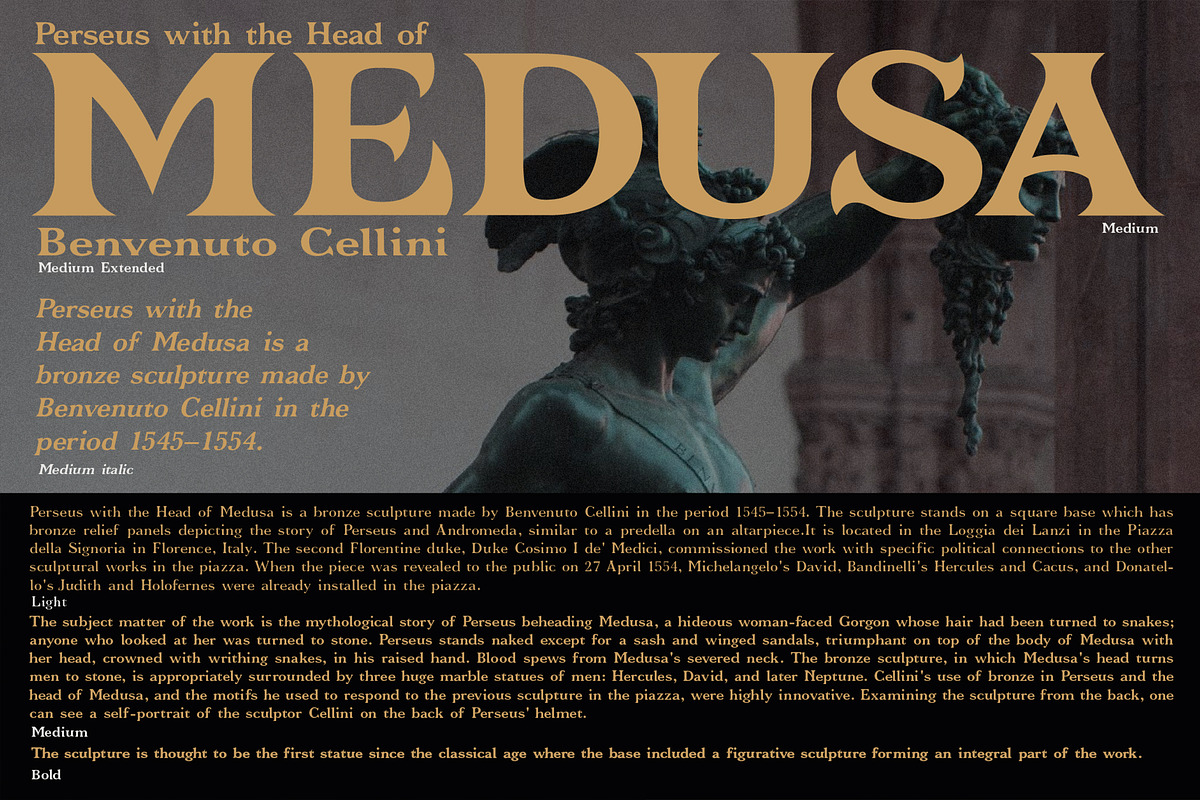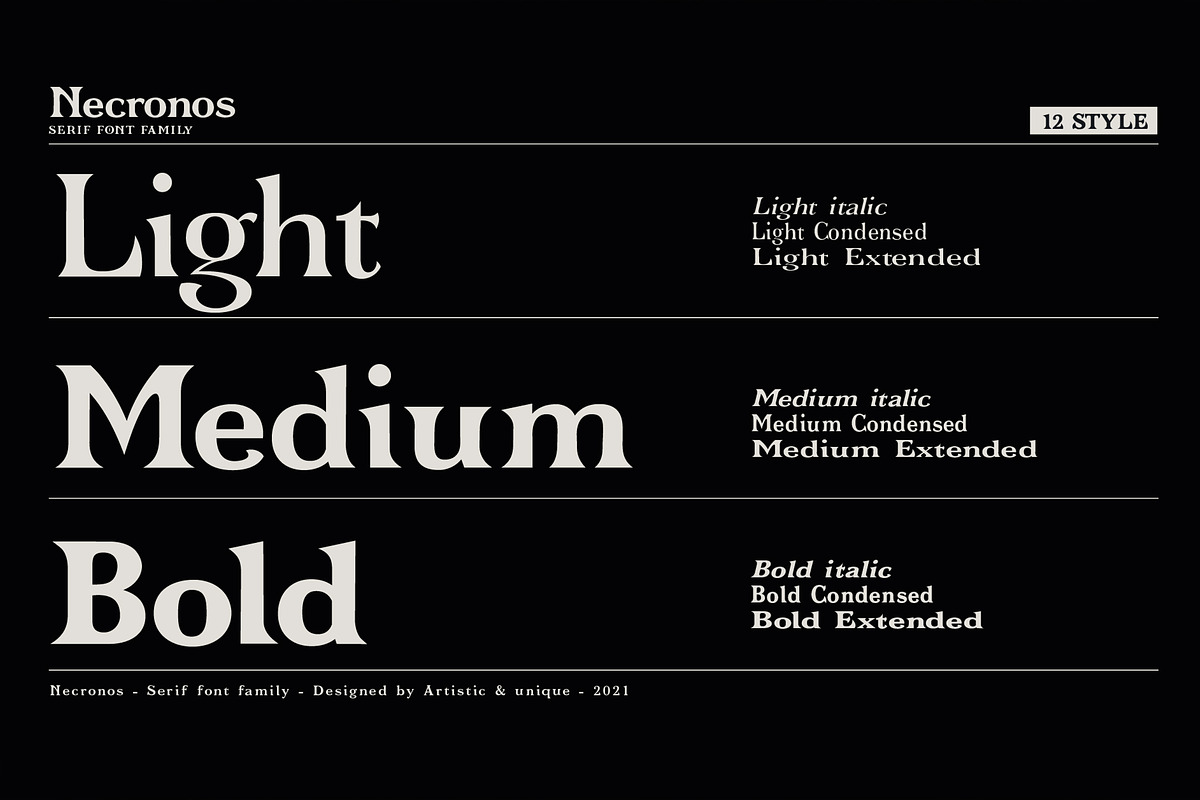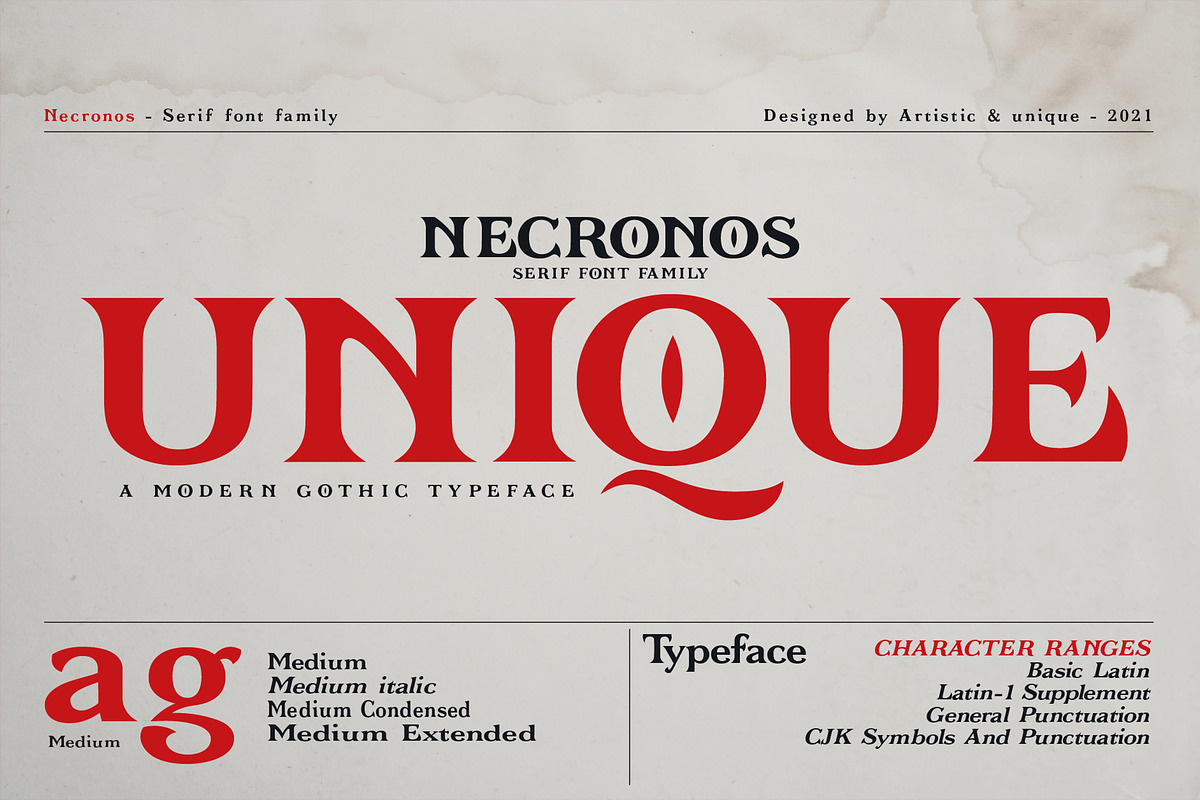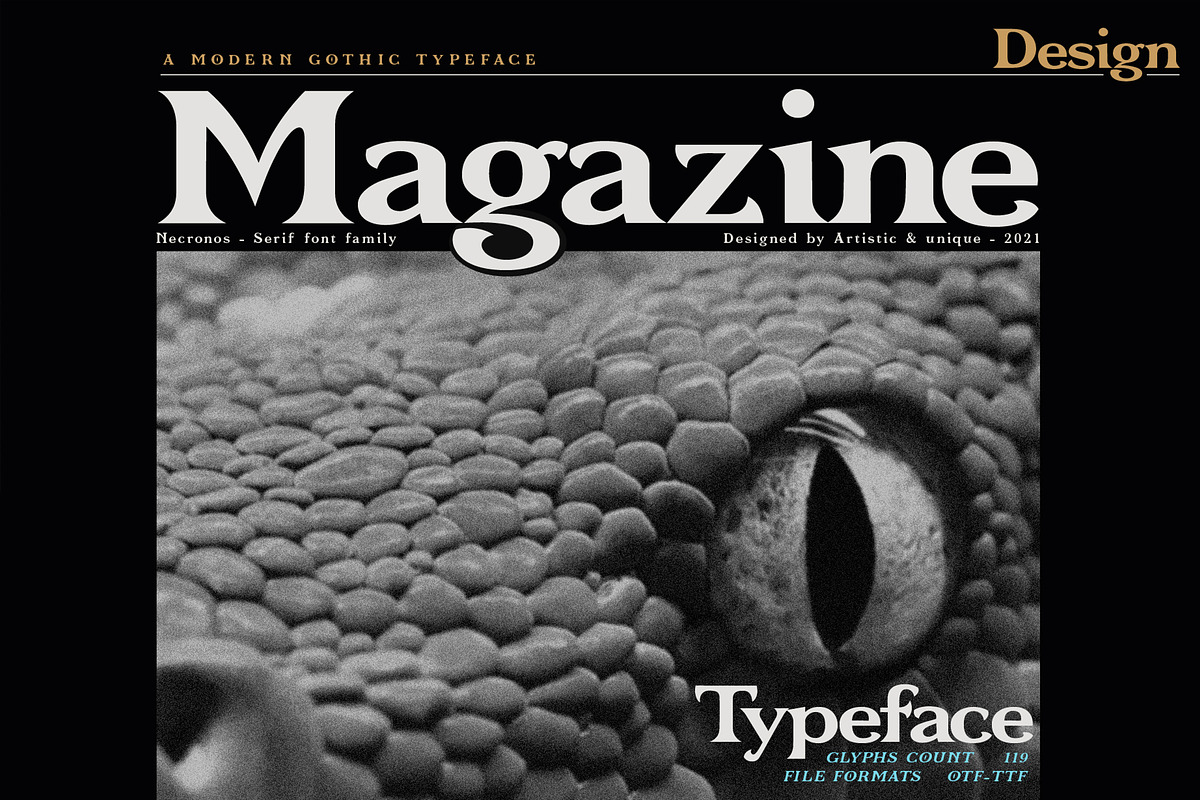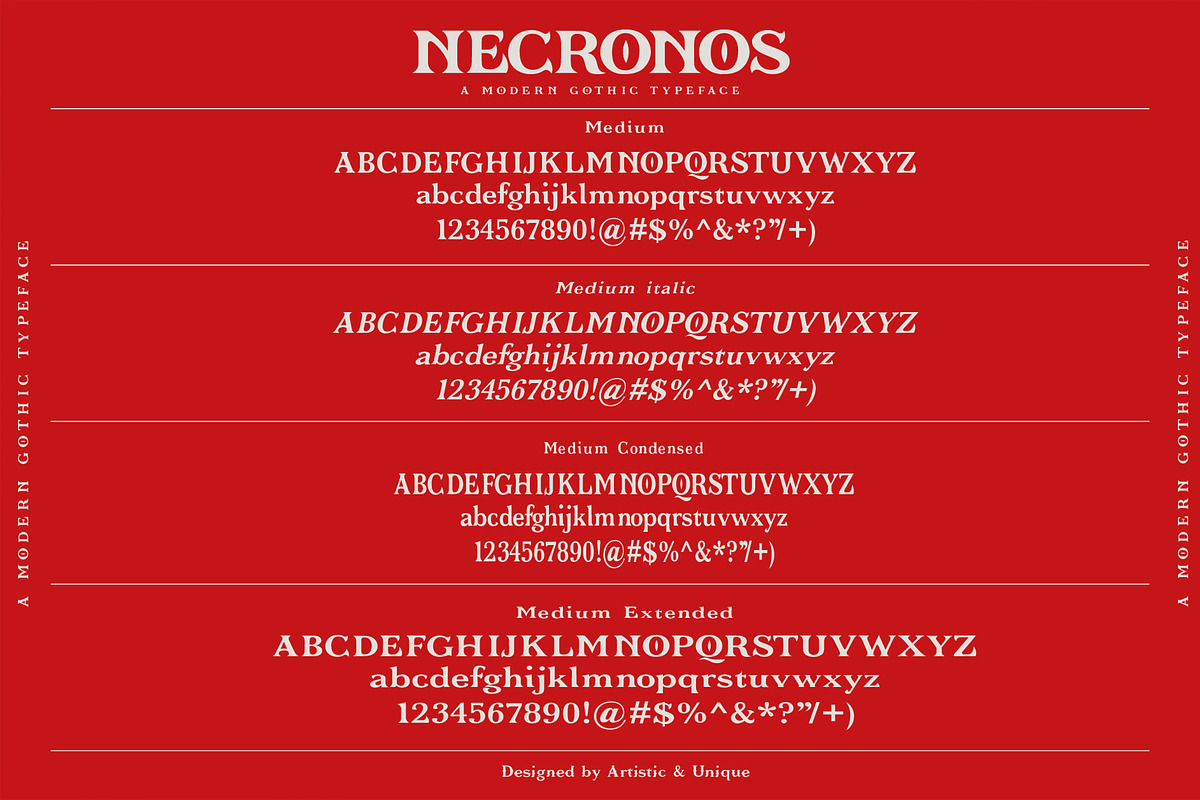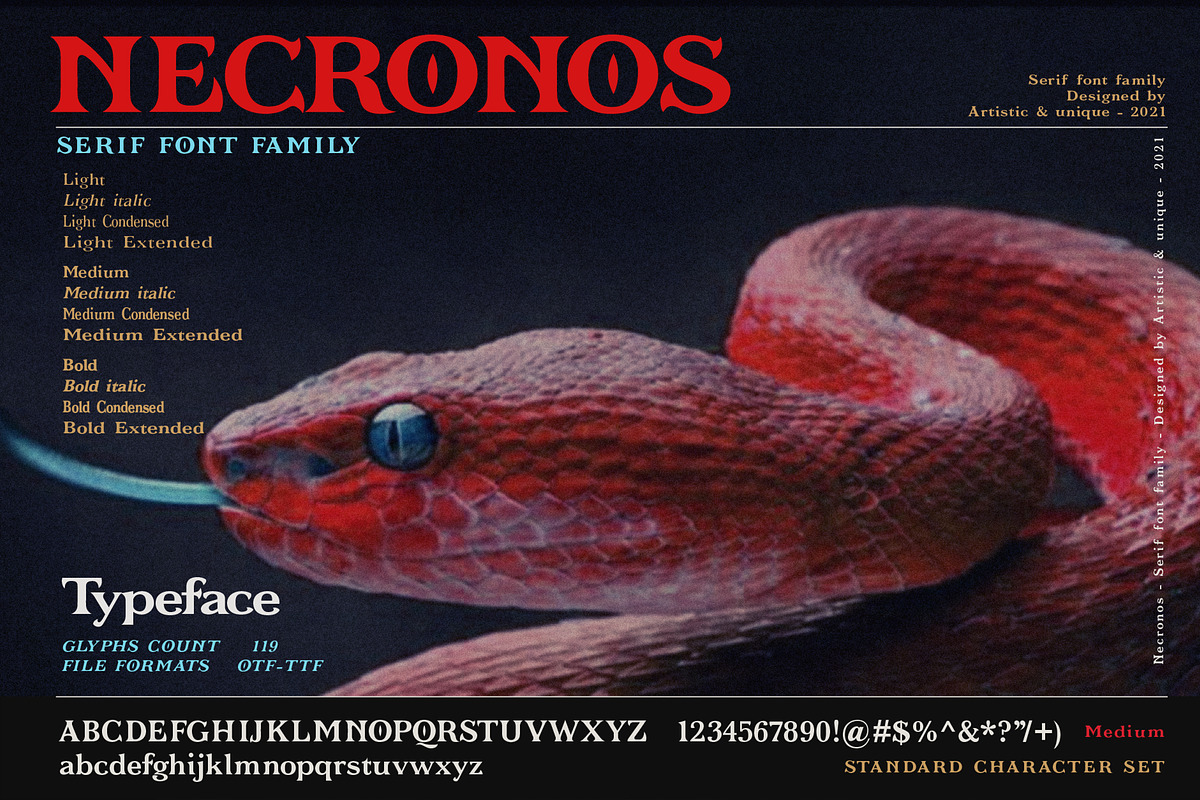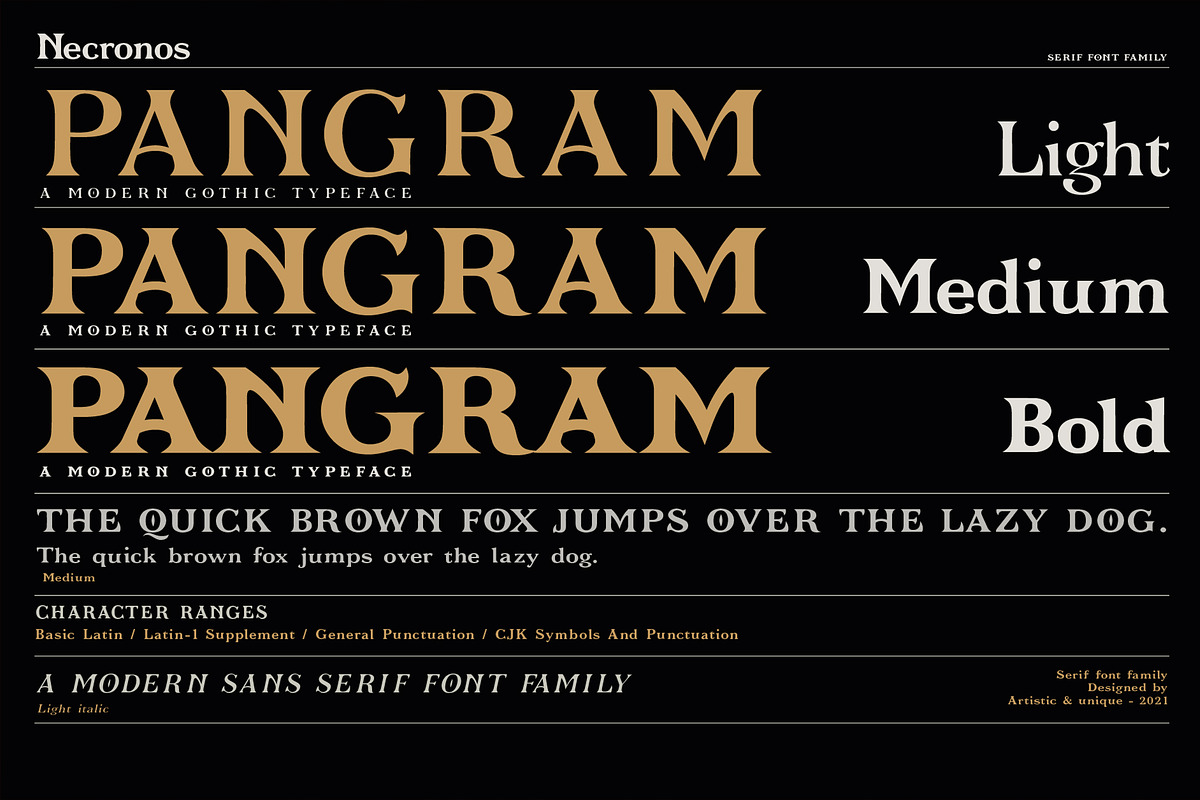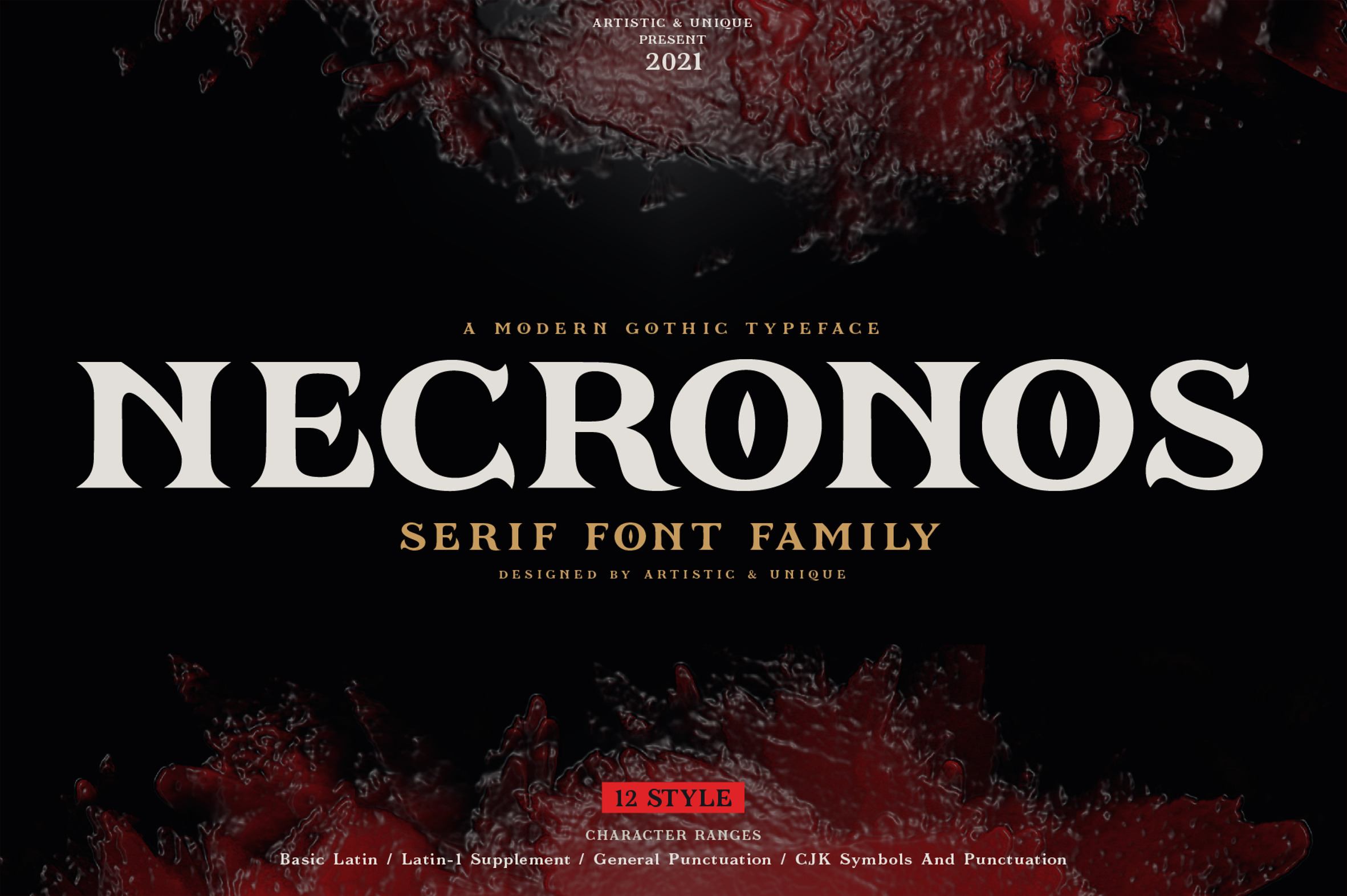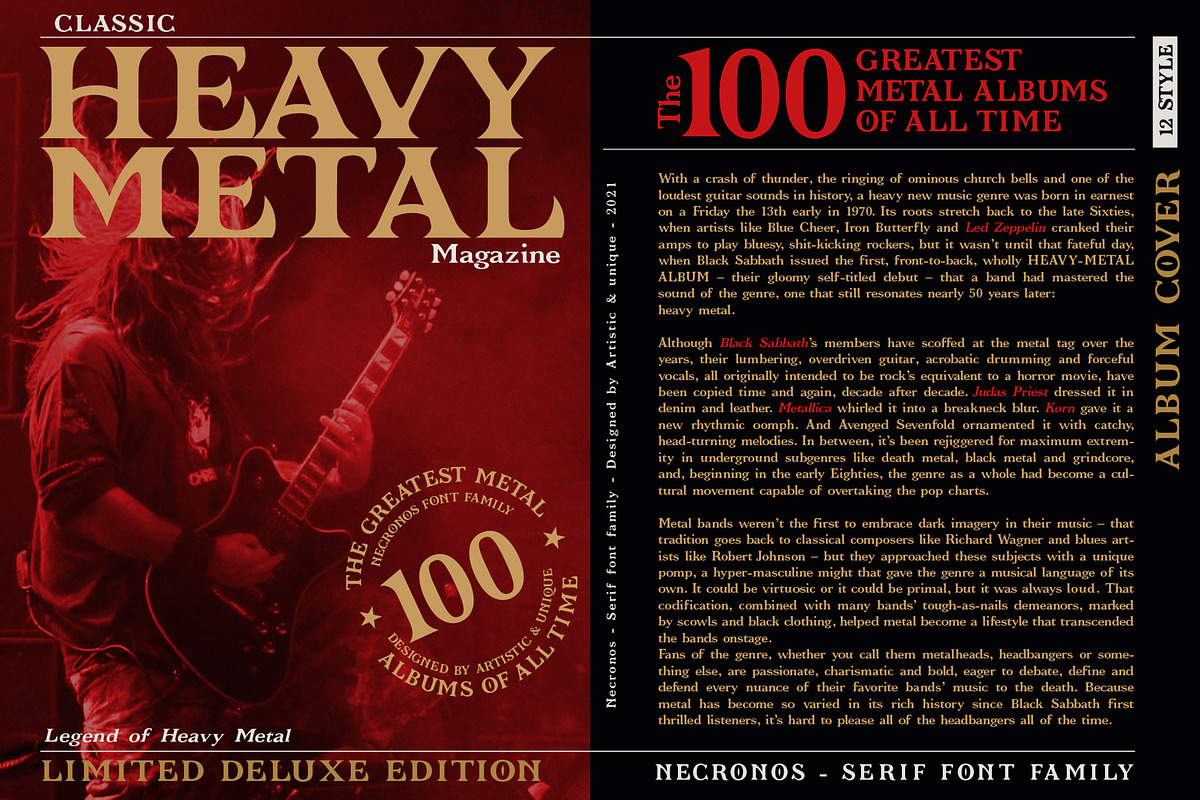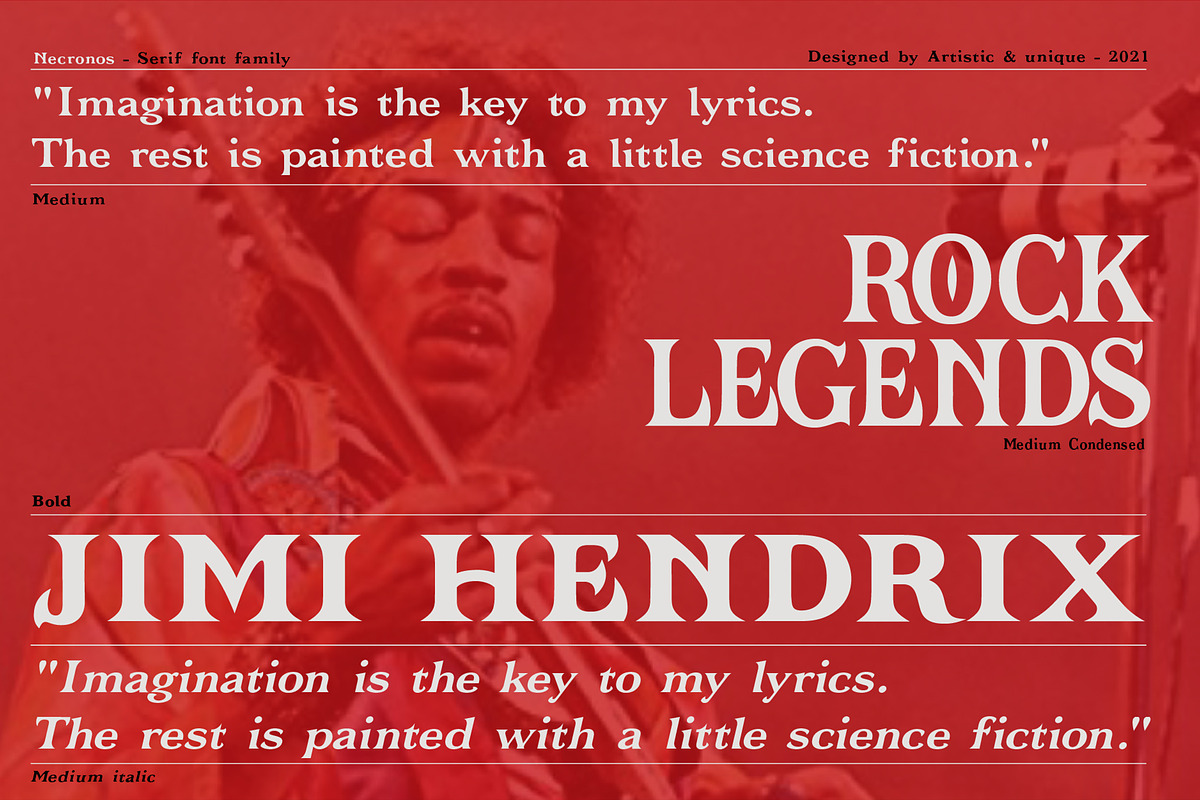
Necronos - Serif font family
Necronos font family is ideal for creating your creative projects on similar subjects with its gloomy and modern gothic stance.
Necronos serif font, stylized with elegant soft turns that soften the sharp ends. Due to its structure, this font can meet your needs in all your modern or classic creative projects.
It offers rich solutions to your creative projects with its alternative versions. You can easily use the serif font feature in many areas. You can create your text with normal characters and highlight bold characters and titles.
Well suited for books and magazines, magazine covers, newspapers, editorials, headlines, websites, logos, album cover, branding, advertising and more.
Necronos font family is the perfect font for your design ideas.
With this font you can create your unique designs.